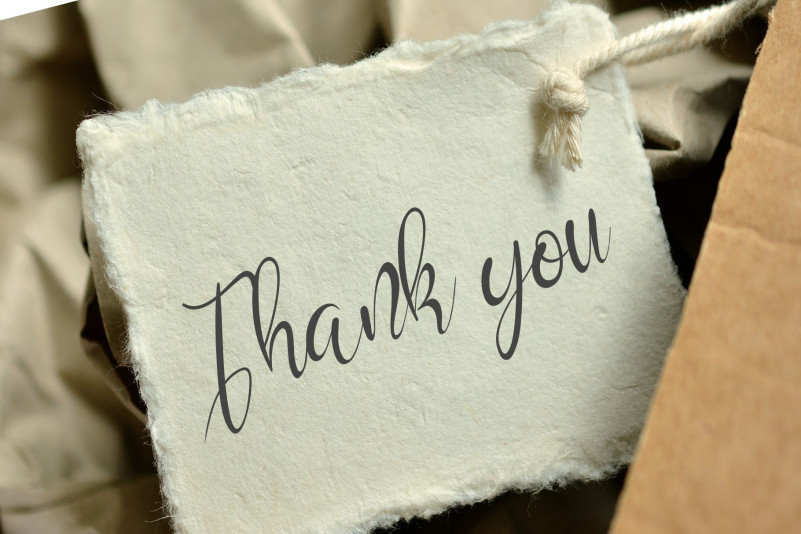
Darknight Font
Darknight Script Font
This is a lovely and timeless handwritten font. It is the best choice for creating eye catching logos, branding and quotes. Every letter has a unique and beautiful touch, which will make your design come alive!